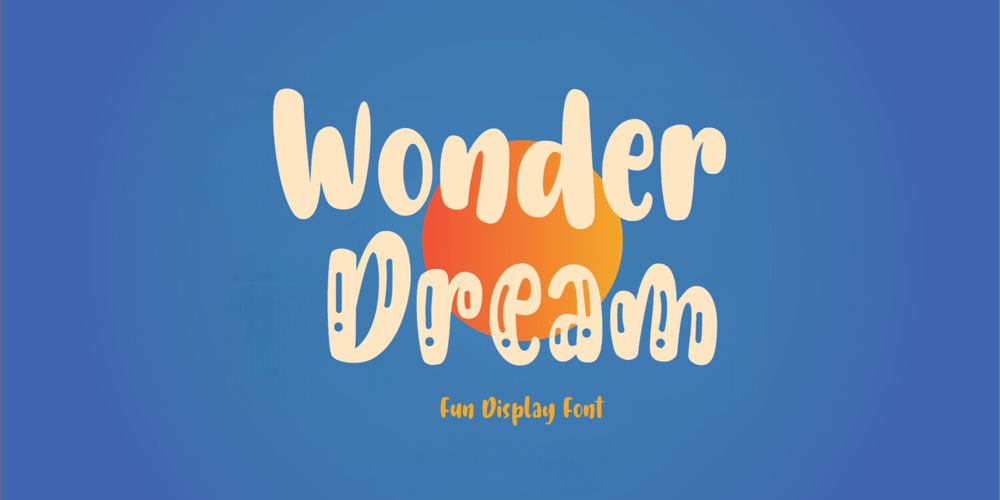
Wonder Dream
Wonder Dream font
Wonder Dream Font Family was designed by Irpan Maulana and published by Sabrcreative. Wonder Dream contains 2 styles and family package options. Welcome to Sabr Creative, where imagination comes to life through fonts like our delightful Wonder Dream. This display font is designed to bring smiles to kids and kids at heart with its cute and happy style. The Wonder Dream font is perfect for adding a touch of whimsy to your creative projects, from children’s books to playful invitations and more.